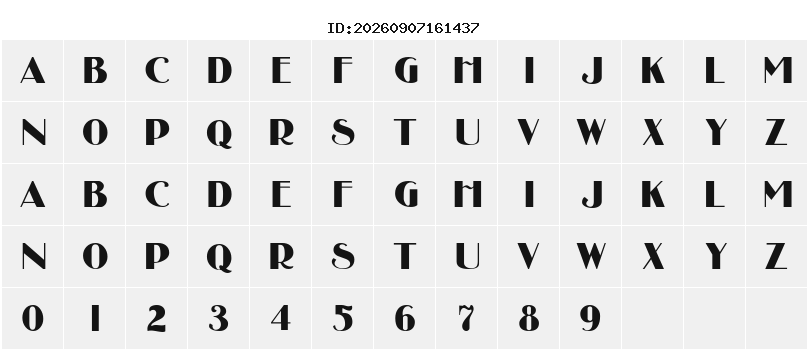
Uncle Bob MF Preview
• Font Name: Uncle Bob MF
• Full Font Name: Uncle Bob MF
About Uncle Bob MF.ttf
Uncle Bob MF.ttf is a modern, elegant sans-serif font designed for ultimate readability and visual harmony. Perfect for branding, headlines, web design, and print materials.